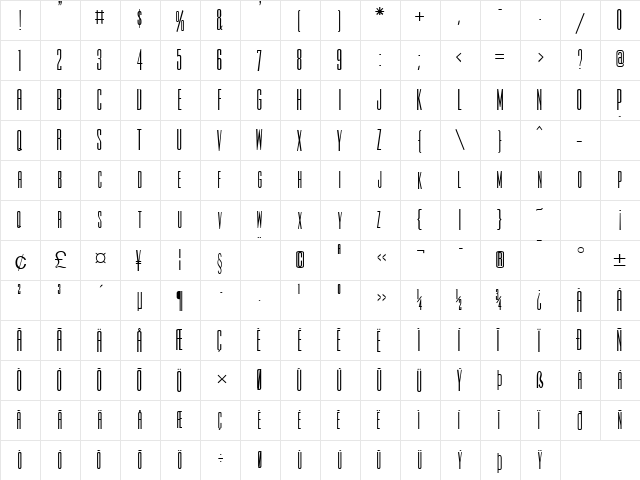
Slim Jim Bold
Design Context for Slim Jim Typeface
Slim Jim offers clean, dependable letterforms without strong stylistic allegiance, making it a practical choice for designers who need flexibility. The heavy weight commands attention and anchors typographic hierarchies.